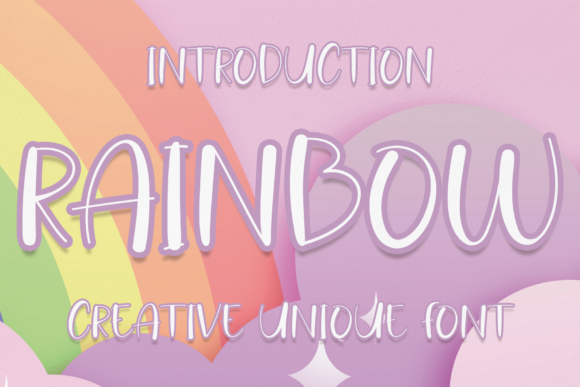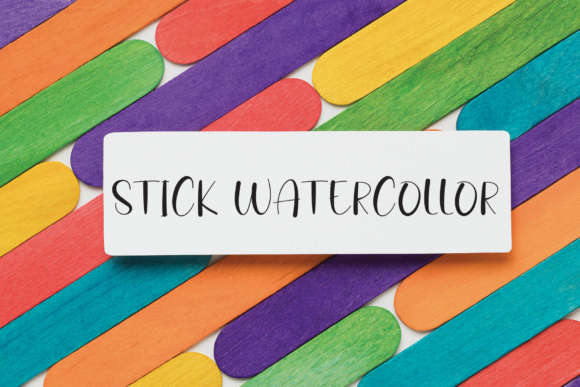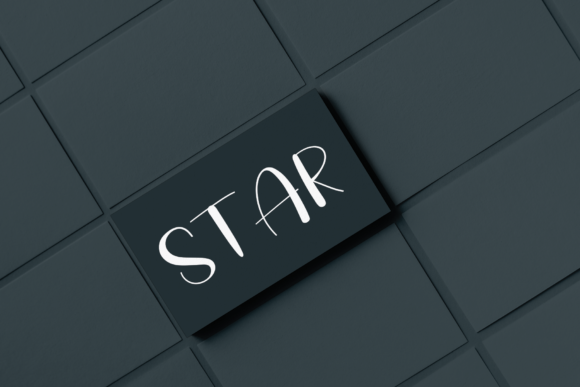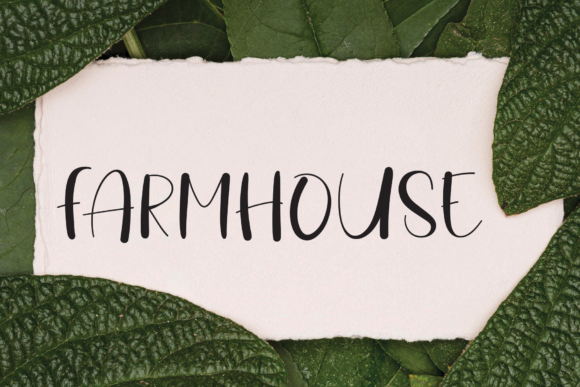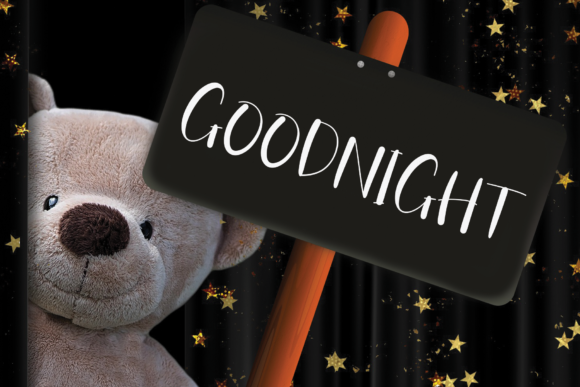
Rainbow Font
About Rainbow Font
Easily readable and with neat characters, Rainbow is the perfect handwritten font for many creations! It will make any design stand out and seem authentic and fun!